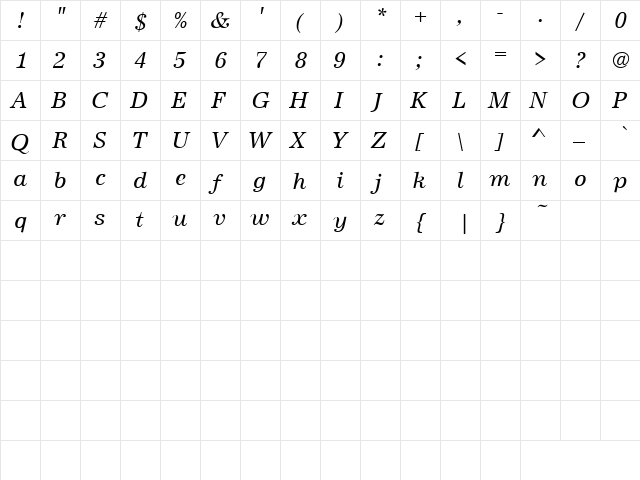
Three Mile Smile 1 Italic
Design Context for Three Mile Smile 1 Typeface
Three Mile Smile 1 is a composed and adaptable typeface that performs quietly and consistently across a wide range of design contexts. Its italic angle brings a sense of urgency and motion to the letterforms.
Pro Tip: Try Three Mile Smile 1 for annotation and caption copy alongside an upright companion — the contrast in angle creates a dynamic but ordered typographic system.